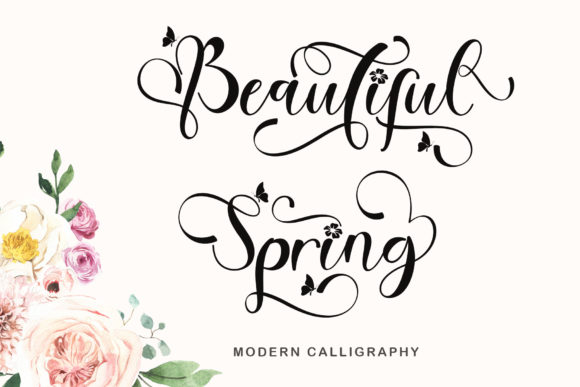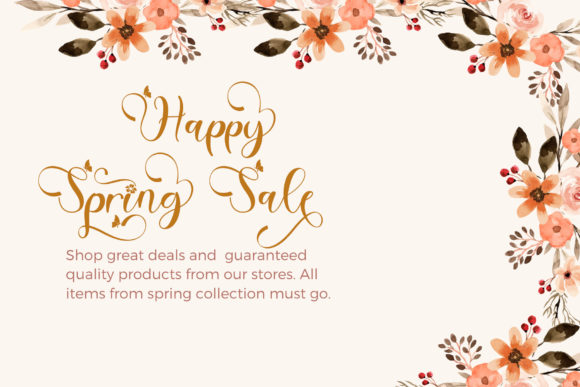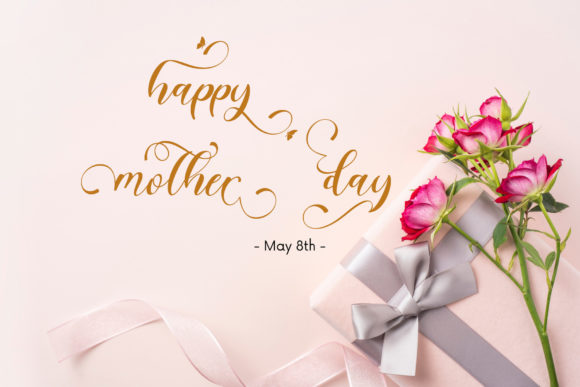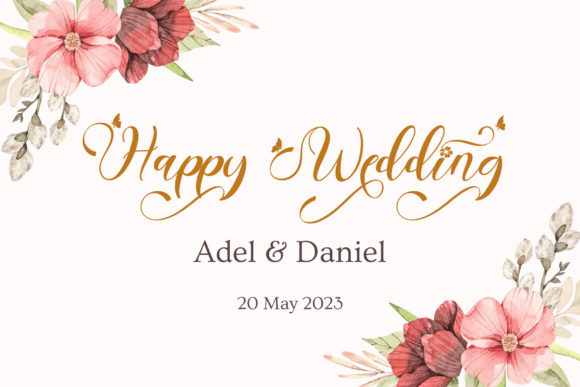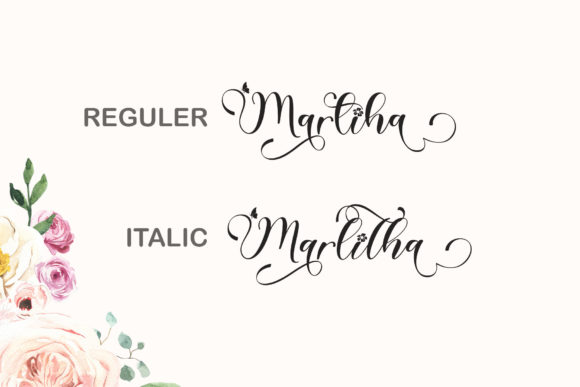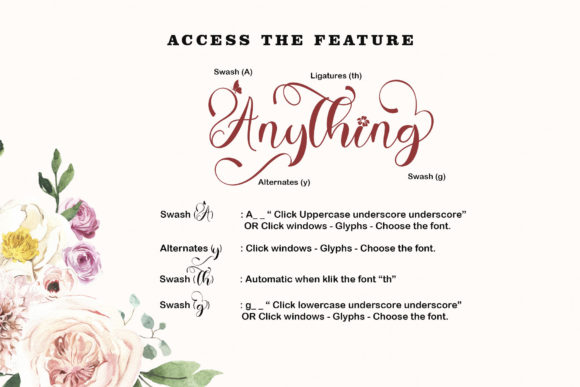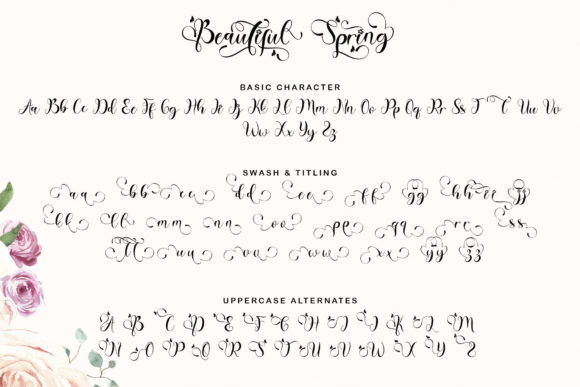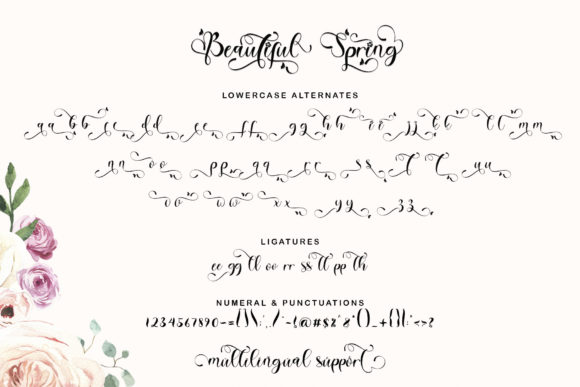
Beautiful Spring Font
About Beautiful Spring Font
Introducing Beautiful Spring, a free-flowing script font meticulously crafted for a wide range of creative projects. Designed with packaging products, invitation cards, flyers, mockups, event posters, and more in mind, Beautiful Spring offers high-quality vibes with its beautiful and balanced characters. The font is PUA encoded, allowing easy access to all glyphs and swashes for seamless customization.
The charm of Beautiful Spring lies in its free-flowing script, adding a sense of fluidity and elegance to your designs. Whether you’re creating packaging for products or designing event posters, this font brings a touch of beauty that enhances the overall aesthetic.
For invitation cards, Beautiful Spring becomes a perfect choice to convey a warm and inviting atmosphere. The script font’s balanced characters contribute to a harmonious and visually pleasing design, setting the tone for special occasions.
In the realm of flyers and mockups, Beautiful Spring adds a high-quality and polished vibe. The font’s versatility allows it to adapt effortlessly to different design needs, ensuring your promotional materials are engaging and visually appealing.
Event posters benefit from the beautiful and free-flowing script of Beautiful Spring, creating a dynamic and eye-catching design. The font’s PUA encoding further enhances customization options, allowing you to explore different glyphs and swashes for added creativity.
Beautiful Spring is not just a font; it’s a versatile design tool that brings a touch of elegance and high-quality vibes to your creative projects. Whether you’re working on packaging, invitations, flyers, or anything in between, let Beautiful Spring be the conduit for your artistic expression. Embrace the beauty and flexibility of Beautiful Spring as you infuse your designs with its free-flowing script and balanced characters.